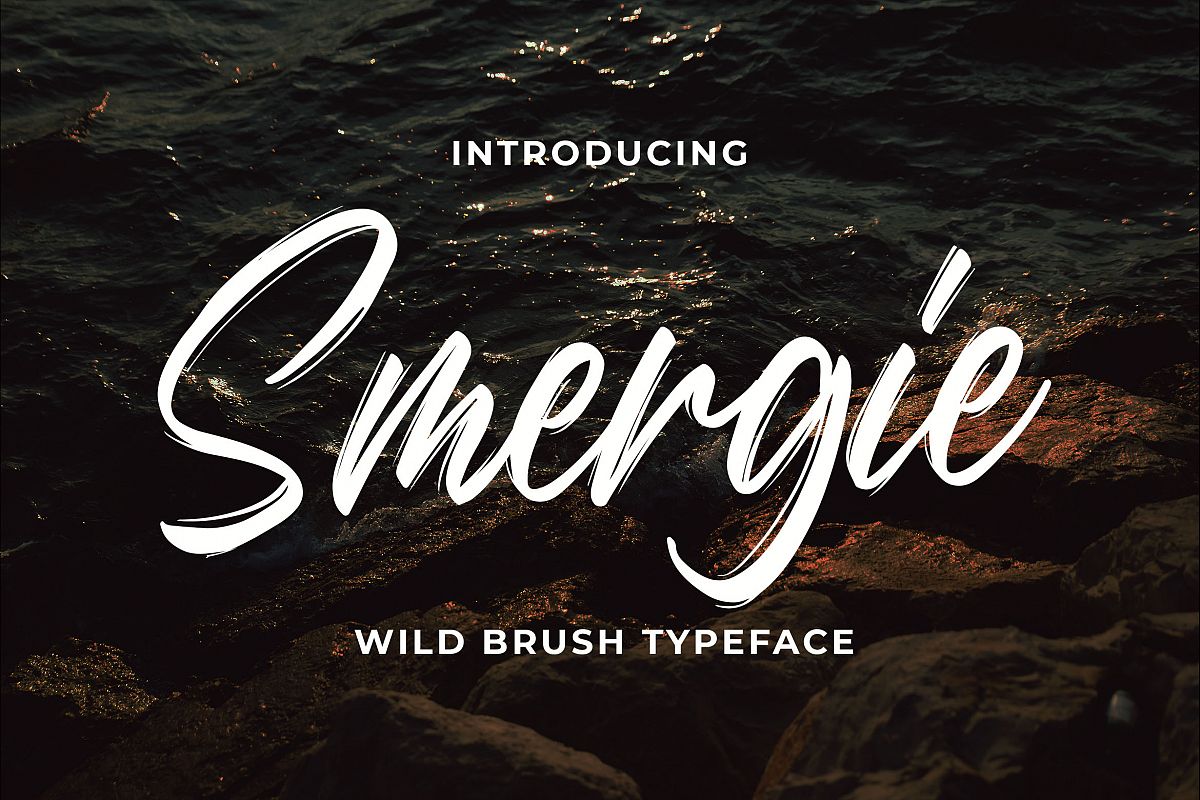
Introducing of our new product the name Smergie Wild Brush Typeface. Smergie made with Brush pen into digital this font is a fun theme very good for signature, poster, branding, logotype etc
MULTILINGUAL ACCENT :ŽžŠŒšŸÀÁÂÃÄÅÆÇÈÉÊËÌÍÎÏÐŁÑÒÓÔÕÖØÙÚÛÜÝßàáâãäåæçèéêëìíîïłñòóôõöøùúûüýÿ